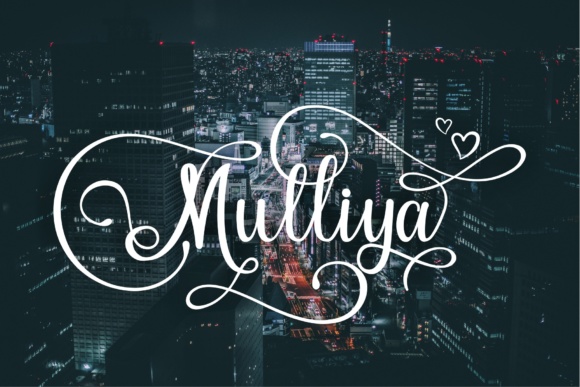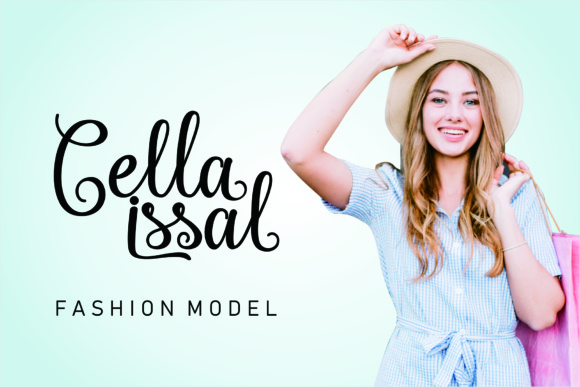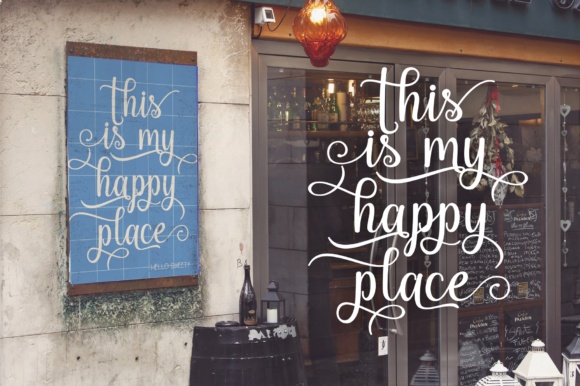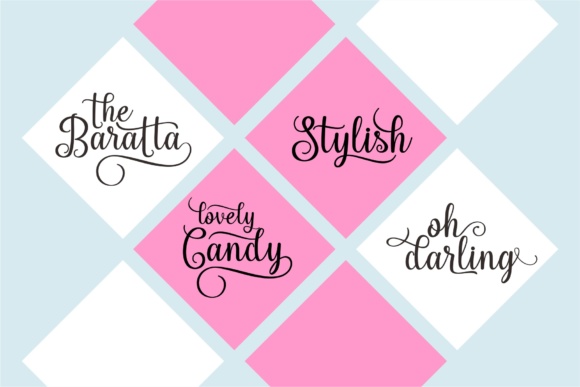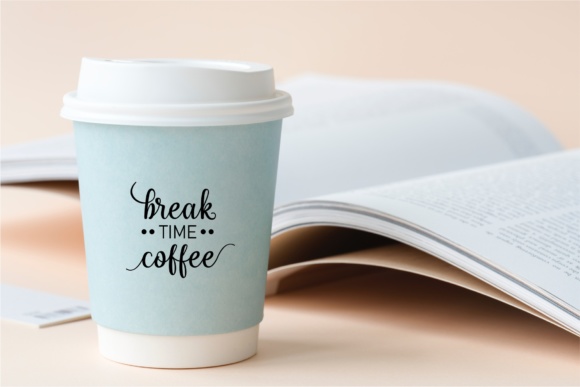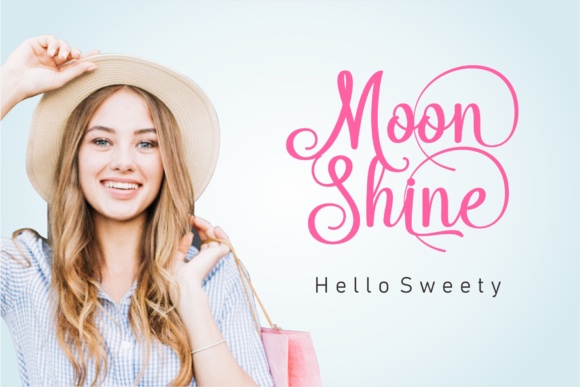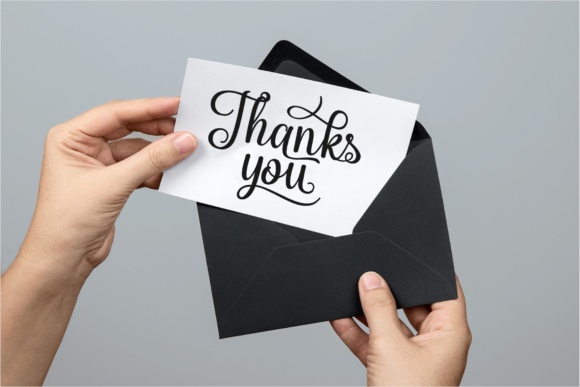
Hello Sweety Font
About Hello Sweety Font
Hello Sweety is a beautiful script font, both elegant and charming in look and design. This font comes with over 730 alternate characters and ligatures, so you can create the most stellar looking calligraphy designs simply and easily.